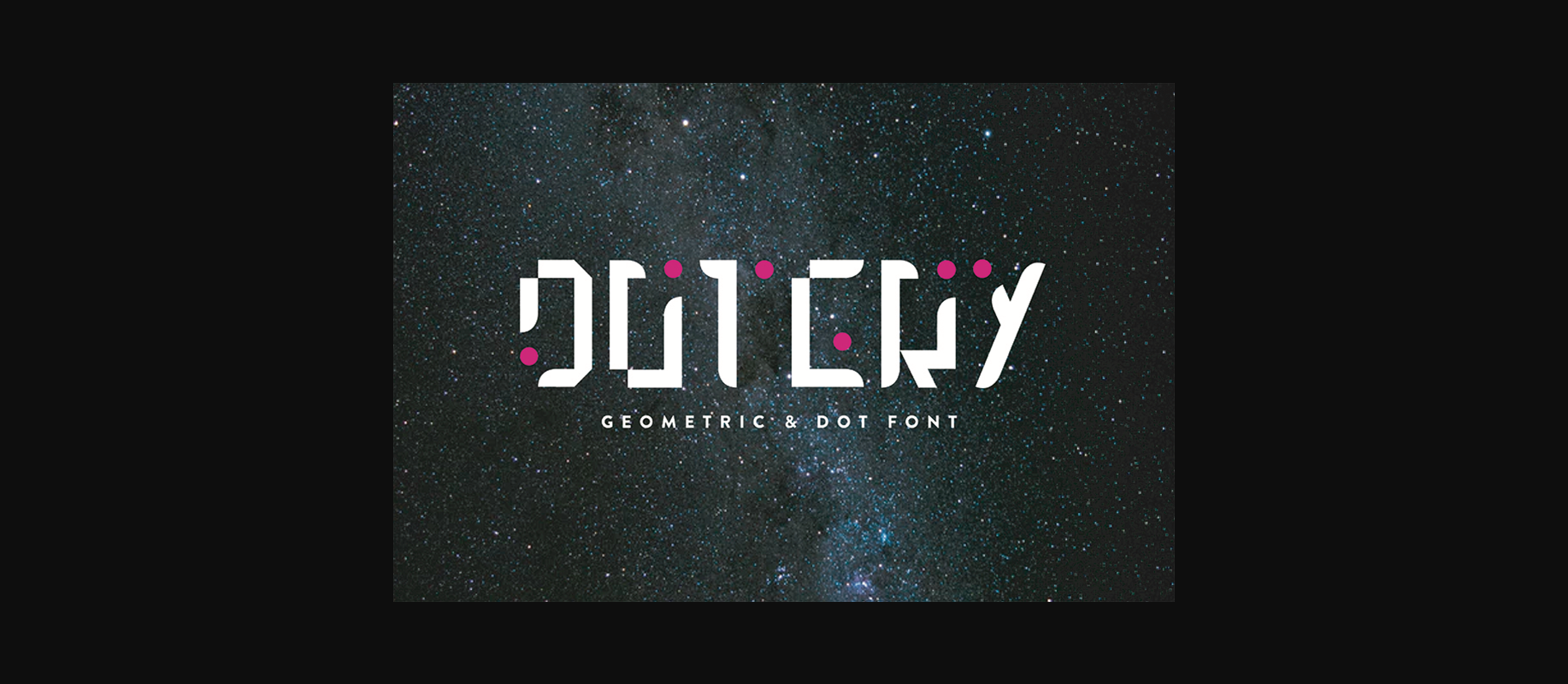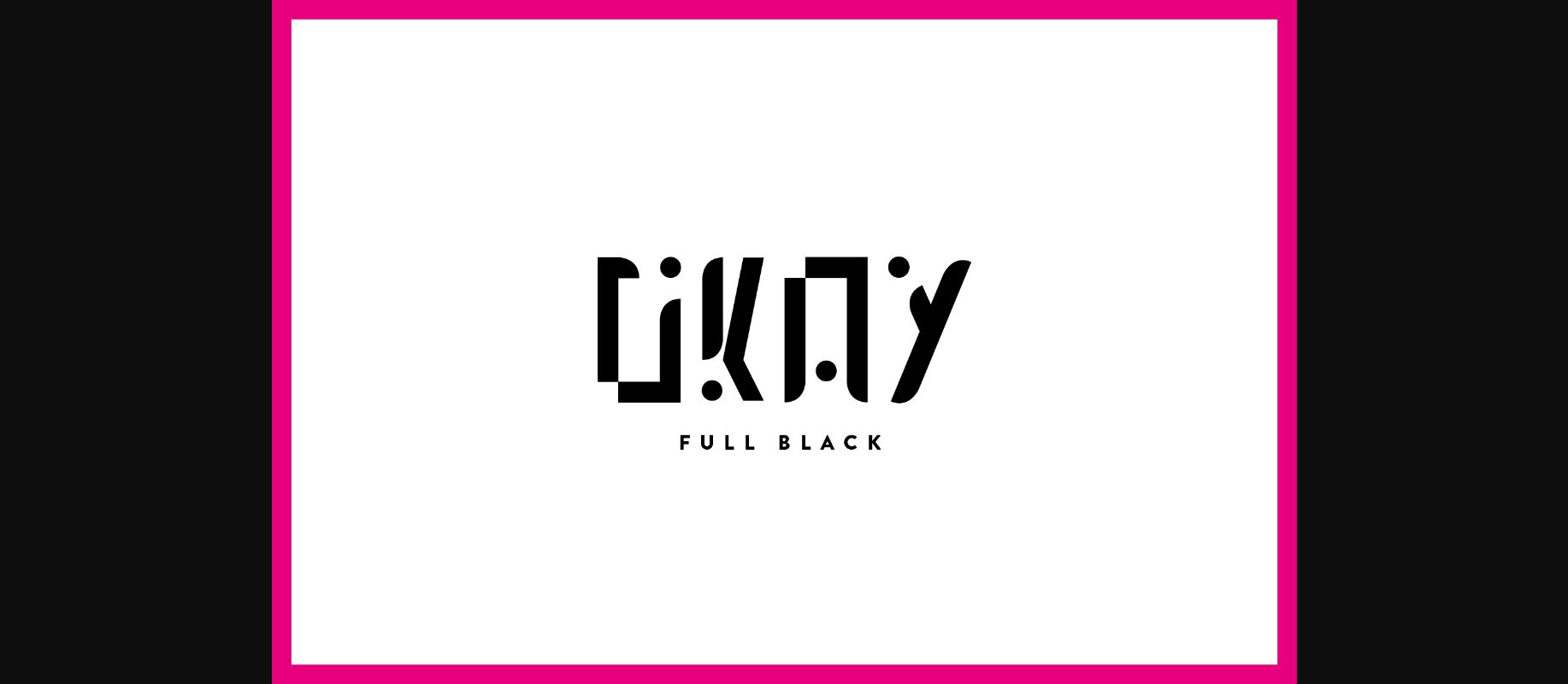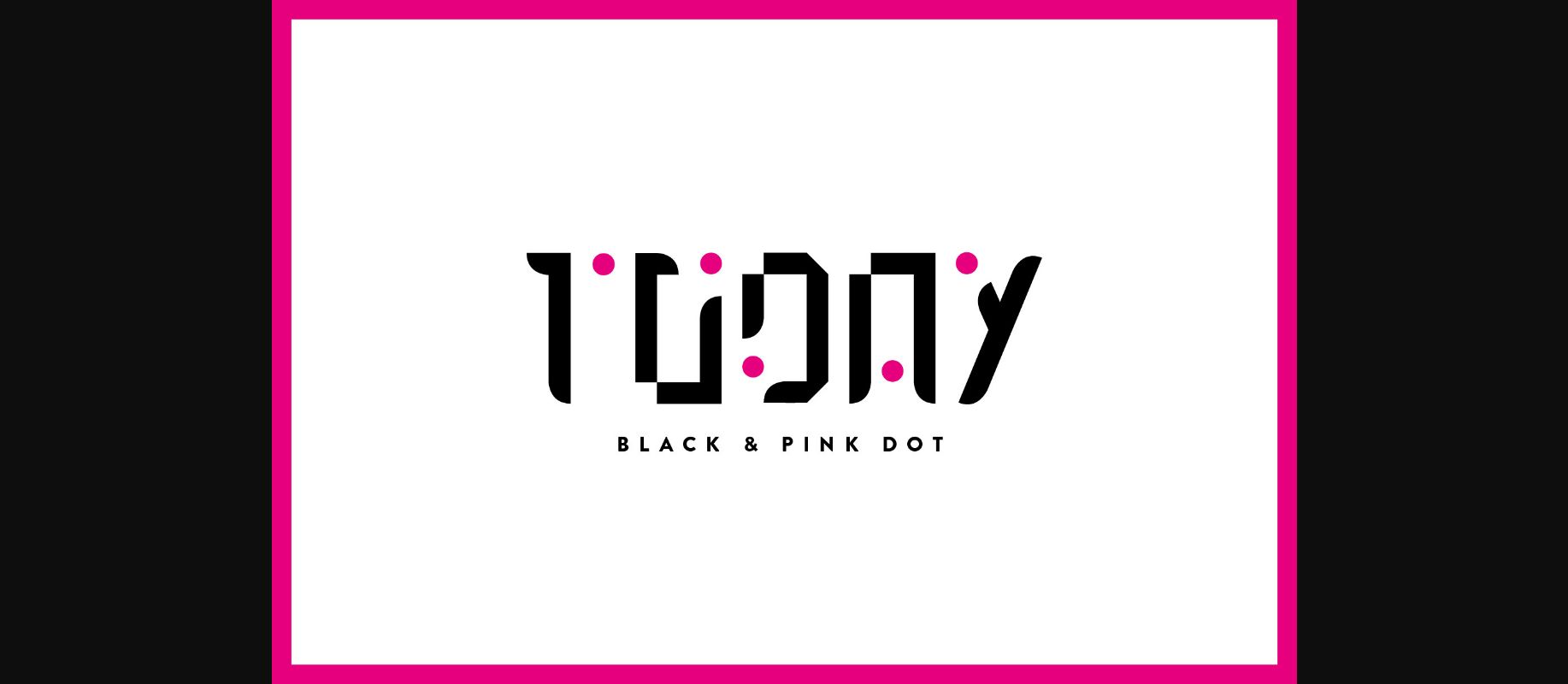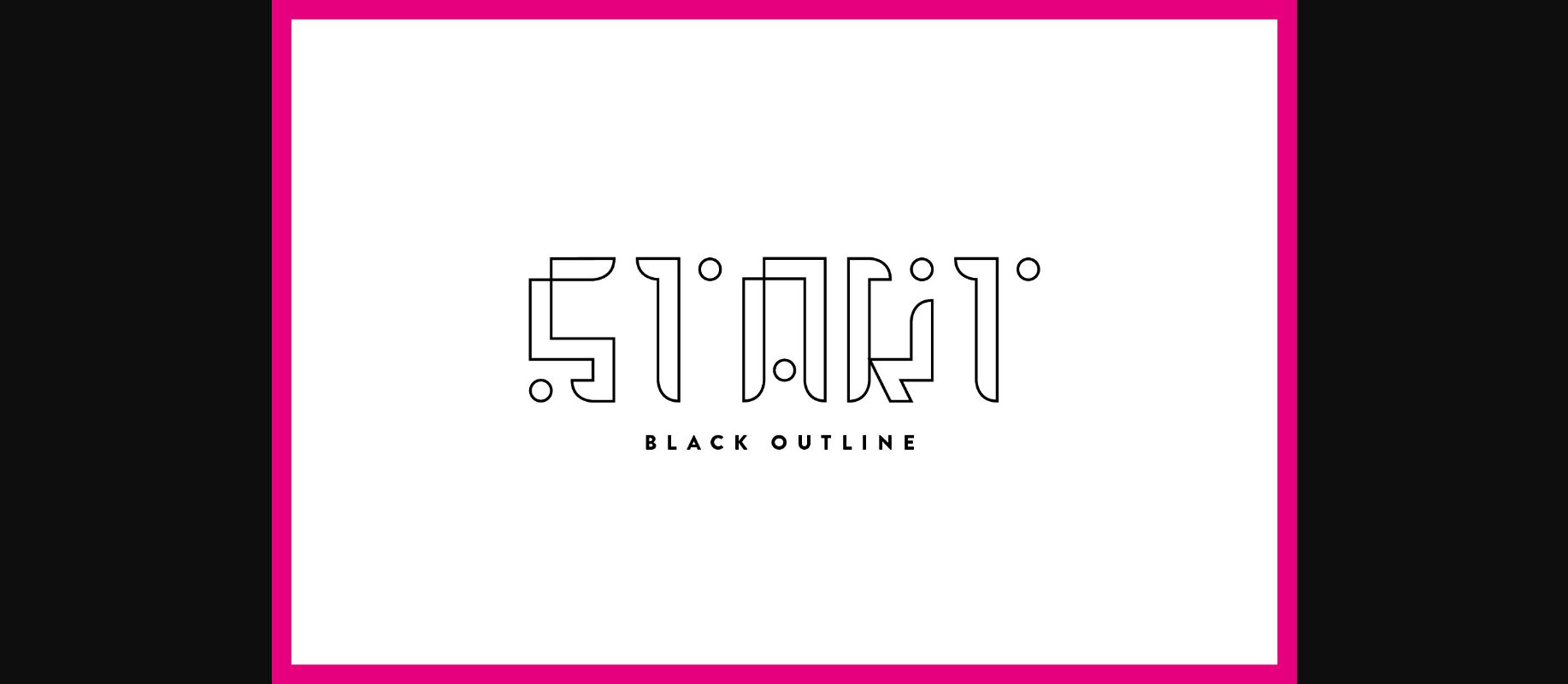
About Dotery Font
Dotery is an interesting decorative font. Combining a geometrical style with digital-looking characters, this font will transform the look of your creations into unearthly and mysterious crafts.